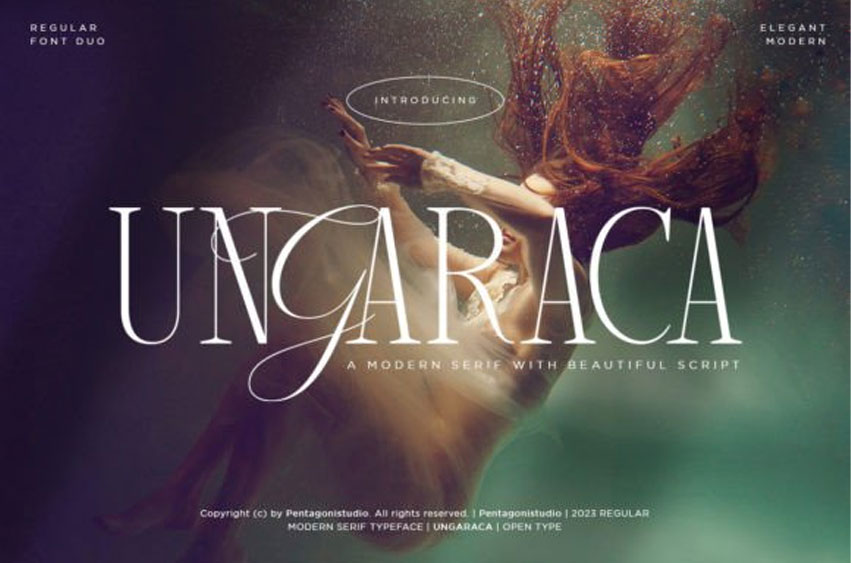
Ungaraca Font is a retro, distinctive, and modern serif font that offers a unique blend of old-school charm and contemporary style. This font features sleek and refined letterforms with a nod to classic typography, while also being fresh and innovative.
Perfect for creating standout logos, editorial designs, or any project where a distinct and memorable look is desired. This font is PUA encoded which means you can access all glyphs and swashes effortlessly!